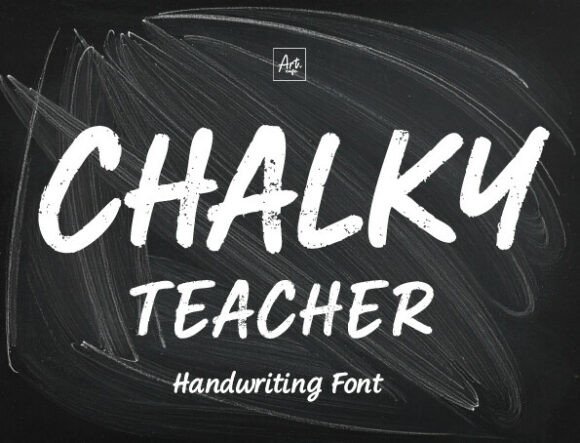
Introducing Chalky Teacher Font: The Perfect Addition to Your Educational Designs
Are you a teacher, educator, or homeschool creator looking for a fun and engaging font to add a personal touch to your educational resources? Look no further than Chalky Teacher Font! This playful handwriting font is designed to capture the look of real chalk on a blackboard, making it perfect for school-themed designs, teacher printables, classroom décor, educational worksheets, kids’ crafts, and more!
What is Chalky Teacher Font?
Chalky Teacher Font is a hand-drawn, chalk-inspired font that brings a nostalgic classroom vibe to every design. With its bold strokes and imperfect texture, this font is sure to add a friendly and engaging touch to any educational resource. Whether you’re designing a back-to-school project, bulletin board headers, or cute educational resources, Chalky Teacher Font is the perfect choice.
Features of Chalky Teacher Font
- Hand-drawn and chalk-inspired: Chalky Teacher Font is designed to look like real chalk on a blackboard, giving it a unique and authentic feel.
- Bold strokes: The font features bold strokes that make it easy to read and add a playful touch to any design.
- Imperfect texture: The imperfect texture of the font gives it a homemade feel that’s perfect for educational resources.
- Fun and playful: Chalky Teacher Font is a fun and playful font that’s sure to engage both students and teachers.
Uses for Chalky Teacher Font
Chalky Teacher Font is ideal for a variety of educational designs, including:
- Teachers and educators: Use Chalky Teacher Font to create engaging and interactive lesson plans, worksheets, and classroom décor.
- Homeschool creators: Add a personal touch to your homeschool resources with Chalky Teacher Font.
- Chalkboard signs: Create eye-catching chalkboard signs with Chalky Teacher Font.
- Printable worksheets: Use Chalky Teacher Font to create fun and interactive printable worksheets.
- Kids party invitations: Add a playful touch to kids party invitations with Chalky Teacher Font.
- Classroom décor and labels: Use Chalky Teacher Font to create engaging and interactive classroom décor and labels.
Benefits of Using Chalky Teacher Font
Using Chalky Teacher Font in your educational designs has several benefits, including:
- Increased engagement: The playful and fun design of Chalky Teacher Font is sure to engage both students and teachers.
- Personal touch: Chalky Teacher Font adds a personal touch to any educational resource, making it more relatable and interactive.
- Nostalgic feel: The chalk-inspired design of Chalky Teacher Font brings a nostalgic feel to any educational resource.
- Easy to read: The bold strokes and clear design of Chalky Teacher Font make it easy to read.
Tips for Using Chalky Teacher Font
Here are some tips for using Chalky Teacher Font in your educational designs:
- Use it for headings: Chalky Teacher Font is perfect for headings and titles, adding a playful touch to any design.
- Mix it with other fonts: Mix Chalky Teacher Font with other fonts to create a unique and engaging design.
- Use it for classroom décor: Use Chalky Teacher Font to create engaging and interactive classroom décor, such as bulletin board headers and labels.
- Experiment with colors: Experiment with different colors to add a pop of color to your design.
Chalky Teacher Font is a fun and playful handwriting font that’s perfect for educational designs. With its bold strokes and imperfect texture, this font is sure to add a friendly and engaging touch to any resource. Whether you’re a teacher, educator, or homeschool creator, Chalky Teacher Font is the perfect addition to your educational designs.
Get Creative with Chalky Teacher Font!
So why wait? Get creative with Chalky Teacher Font today and bring a nostalgic classroom vibe to every design! Whether you’re designing a back-to-school project, bulletin board headers, or cute educational resources, Chalky Teacher Font is the perfect choice.